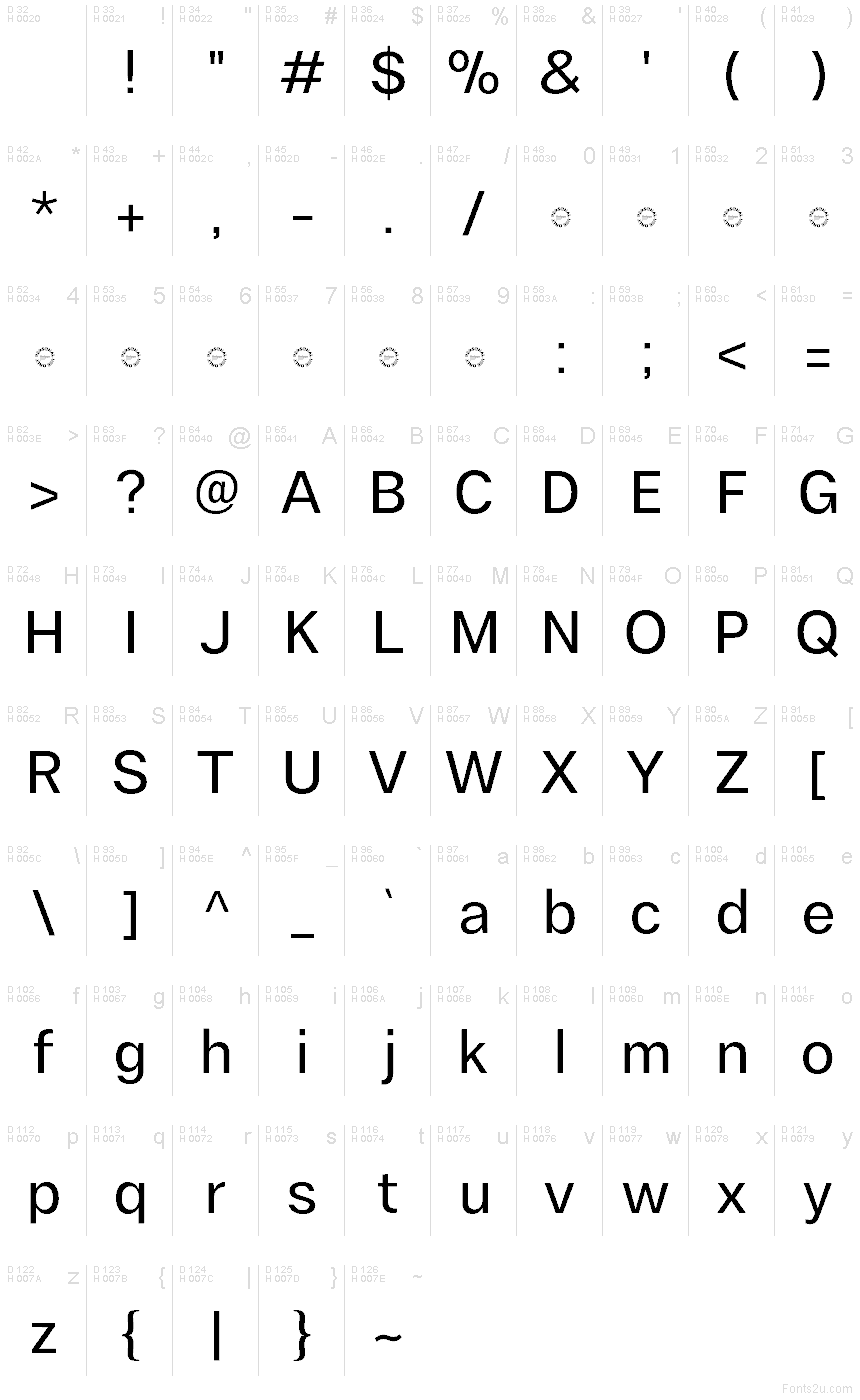
Nevanta Regular
Nevanta font by Muhammad Muammar - Wildan Suprian Syah of Limitype is a free regular humanist sans serif font. It solves the tricky balance between crisp modernity and approachable warmth: clean verticals, gently curved bowls, and open counters keep text breathable, while the calm rhythm and tidy spacing hold layouts together. Sturdy without feeling stiff, it reads as fresh and uncluttered on both screens and print.
Using Nevanta, you’ll get dependable clarity for branding, UI labels, editorial layouts, pitch decks, posters, packaging, and wayfinding. This free font shines when set a touch larger with modest tracking, letting its smooth curves and sharp terminals breathe. Quick tip: pair it with a high-contrast serif for headlines to add a refined tension.